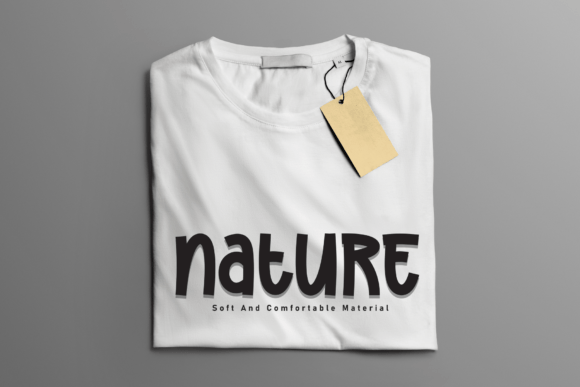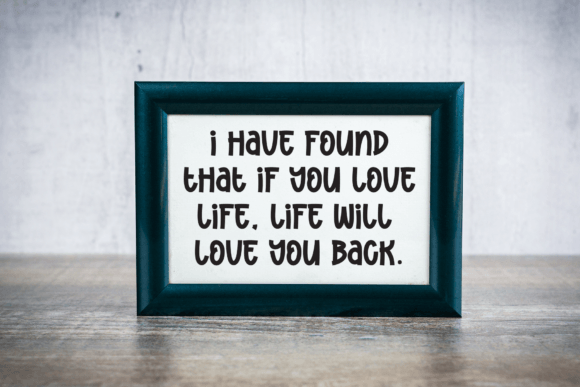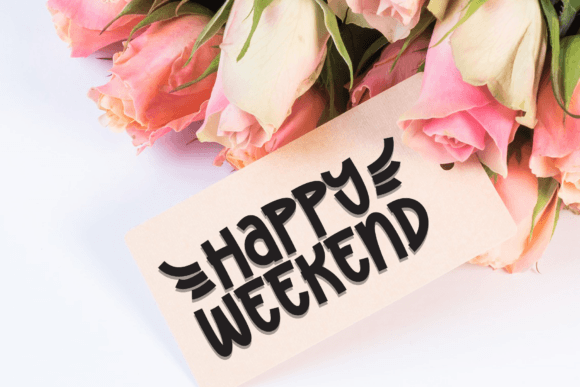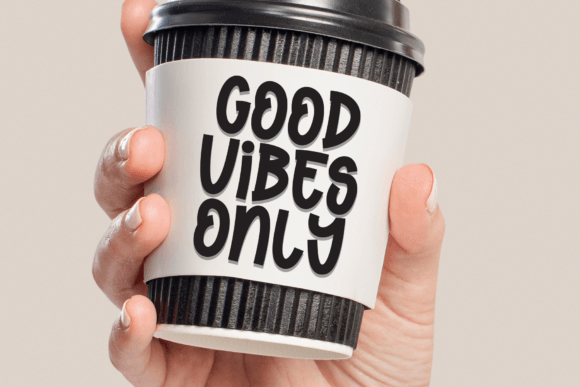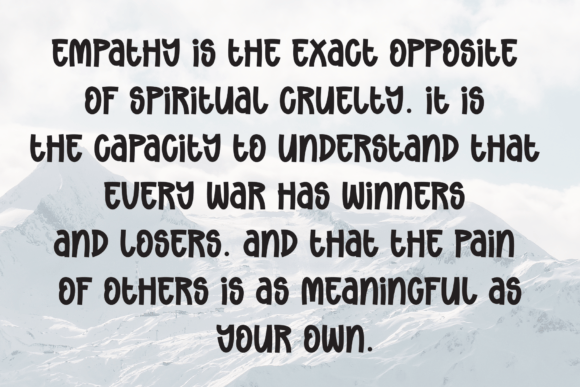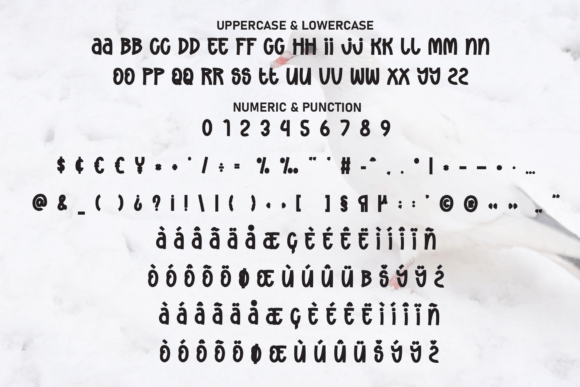
Introducing Dove Winter Font: The Ultimate Choice for Whimsical Designs
Are you a designer or crafter looking for a font that can add a touch of magic to your creations? Look no further than Dove Winter Font, a handwritten display font that exudes charm and friendliness. With its adorable and playful nature, this font is perfect for creating wedding invitations, greeting cards, and any design that needs a sprinkle of fun.
The Characteristics of Dove Winter Font
Dove Winter Font is a unique and captivating font that boasts a range of characteristics that make it stand out from the rest. Its handwritten style gives it a personal and intimate feel, making it perfect for designs that require a touch of warmth and personality. The font’s playful nature ensures that it can add a dash of whimsy to any design, making it ideal for creative projects.
Uses of Dove Winter Font
Dove Winter Font is a versatile font that can be used in a variety of creative projects. Some of the most popular uses of this font include:
- Wedding Invitations: The font’s elegant and playful style makes it perfect for wedding invitations, adding a touch of romance and whimsy to your designs.
- Greeting Cards: Whether you’re creating birthday cards, Christmas cards, or any other type of greeting card, Dove Winter Font is the perfect choice.
- Social Media Graphics: The font’s playful nature makes it ideal for social media graphics, adding a touch of fun and personality to your posts.
- Logos and Branding: Dove Winter Font can also be used to create unique and captivating logos and branding materials.
Benefits of Using Dove Winter Font
There are many benefits to using Dove Winter Font in your designs. Some of the most significant advantages include:
- Unique and Eye-Catching: The font’s unique and playful style ensures that your designs will stand out from the rest.
- Easy to Read: Despite its playful nature, Dove Winter Font is easy to read, making it perfect for designs that require a clear and concise message.
- Versatile: The font’s versatility ensures that it can be used in a range of creative projects, from wedding invitations to social media graphics.
How to Use Dove Winter Font
- Pair it with Other Fonts: Dove Winter Font can be paired with other fonts to create a unique and captivating design.
- Experiment with Colors: The font’s playful nature makes it perfect for experimenting with different colors and color combinations.
- Use it for Headings: Dove Winter Font is perfect for headings and titles, adding a touch of whimsy and personality to your designs.
Dove Winter Font is a unique and captivating font that can add a touch of magic to your designs. With its playful and whimsical nature, it’s perfect for creating wedding invitations, greeting cards, and any design that needs a sprinkle of fun. Whether you’re a designer or crafter, this font is sure to become a favorite in your creative arsenal.